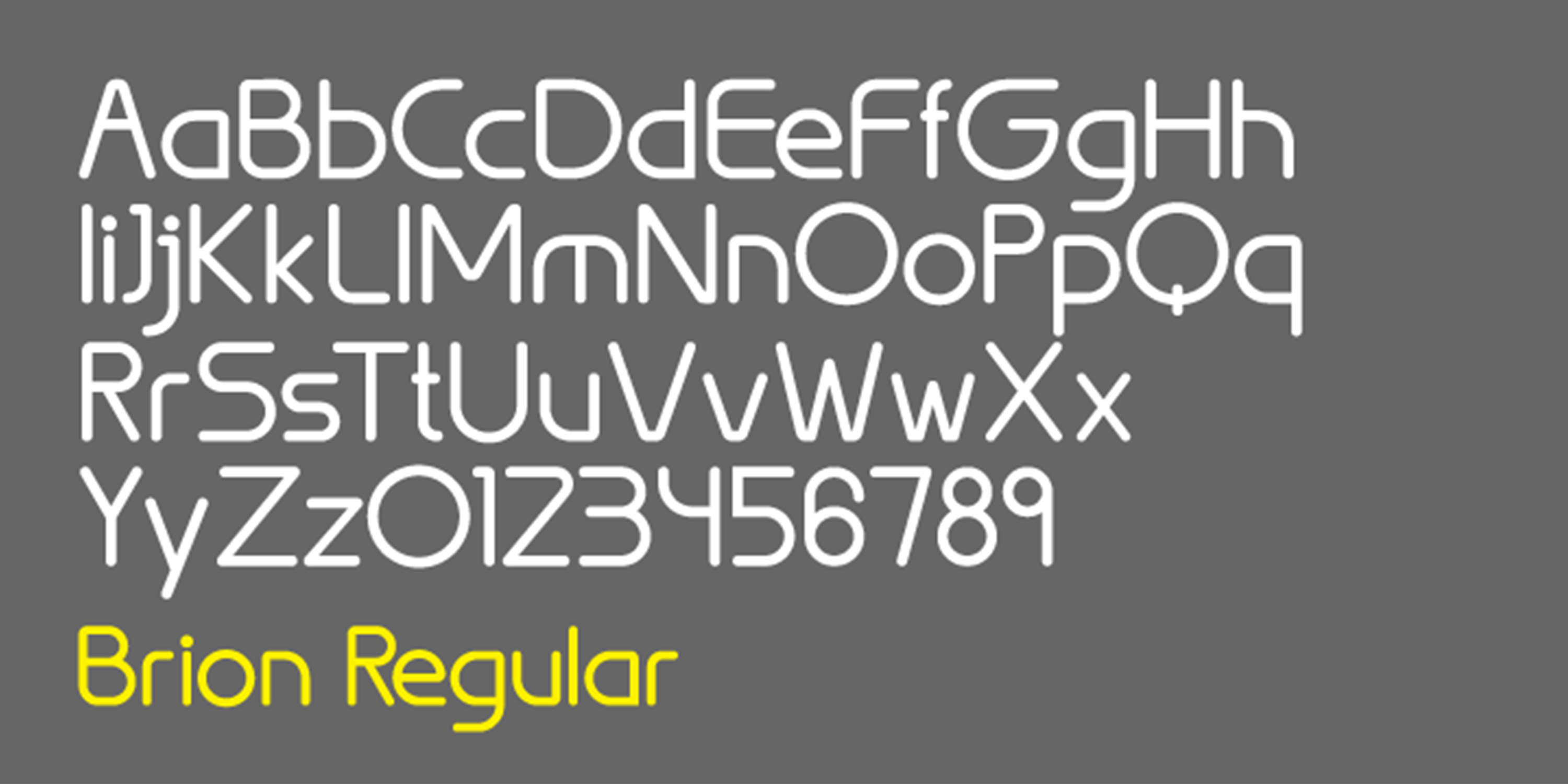
Brion Font is ideal for strong corporate branding, bold leadership communications, determined fitness campaigns, resolute business presentations, powerful motivational materials, confident professional services, decisive marketing strategies, strong foundation companies, unwavering law firms, steadfast construction branding, solid financial institutions, and reliable service communications. This commanding typeface brings unwavering strength to projects requiring confident leadership and determined professionalism.
What makes Brion Font so exciting is its powerful ability to embody unwavering determination and confident leadership through boldly structured letterforms that convey strength, reliability, and steadfast resolve in every character. The font features robustly constructed characters with strong proportions and confident presence that mirror the qualities of decisive leadership and uncompromising integrity essential for success in competitive environments. Its commanding character conveys trustworthiness and authority while maintaining excellent readability, making it perfect for organizations seeking to communicate strength, reliability, and the confident leadership that inspires trust and commands respect with authentic professional authority.
The Brion Font family includes multiple powerful weights and leadership-inspired variations that showcase its commanding character while providing comprehensive design flexibility for various professional and corporate applications. Each variant maintains the original's strong presence while offering extensive options for creating authoritative typographic compositions that celebrate leadership and professional excellence.
Whether you're developing corporate brand identities, creating leadership-focused marketing materials, or designing professional communications, Brion Font Free Download offers the perfect combination of commanding strength and contemporary functionality. This exceptional typeface brings genuine leadership authority to design projects, making it an indispensable choice for designers seeking typography that effectively communicates strength, determination, and the confident leadership that drives success with authentic professional power.